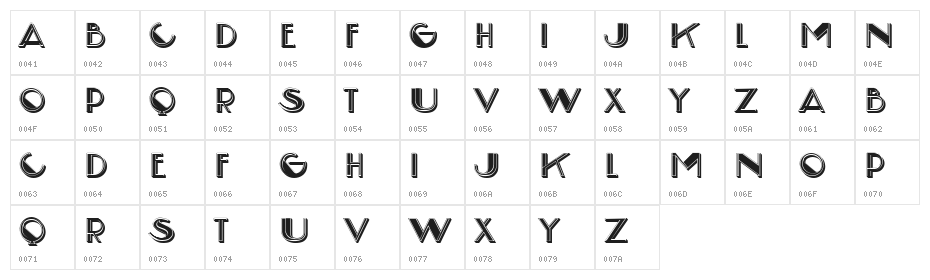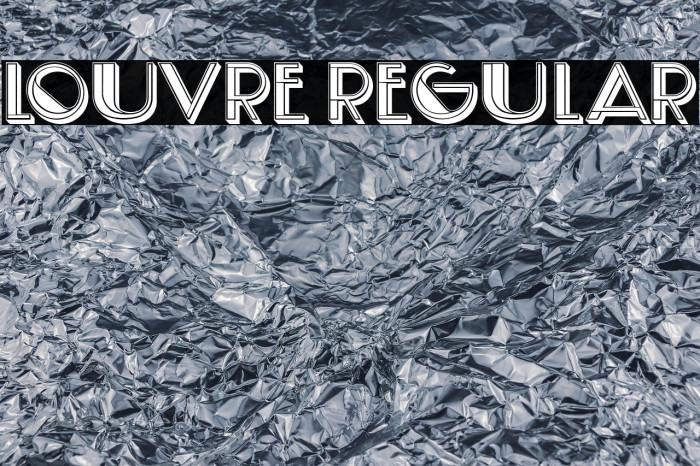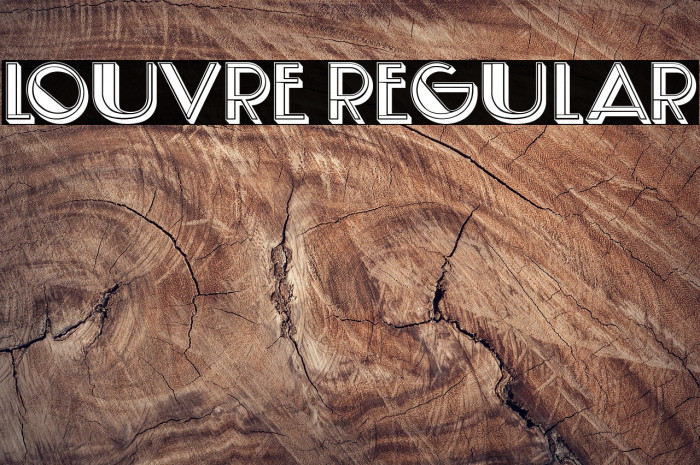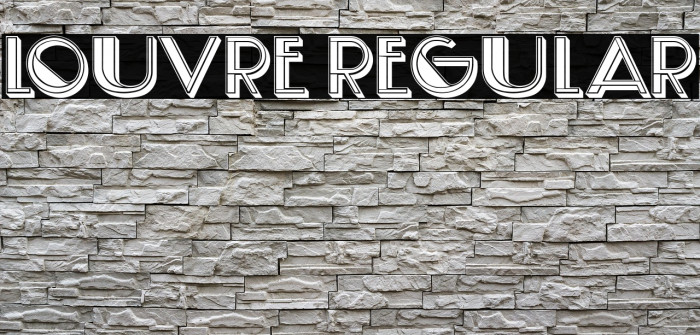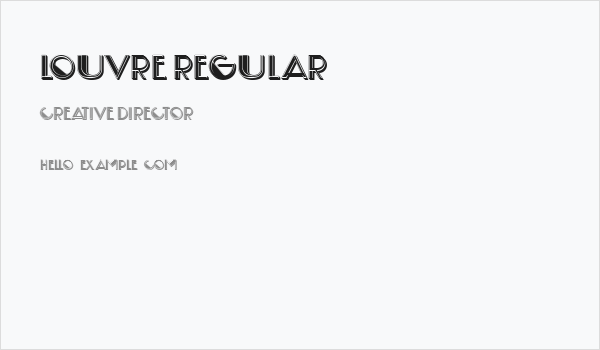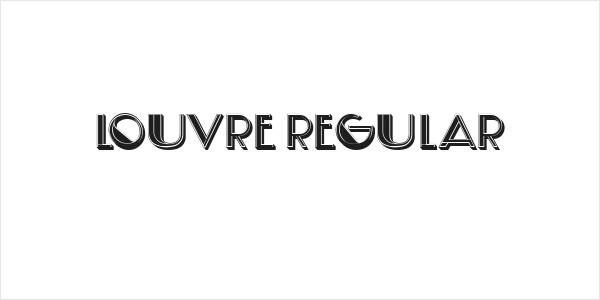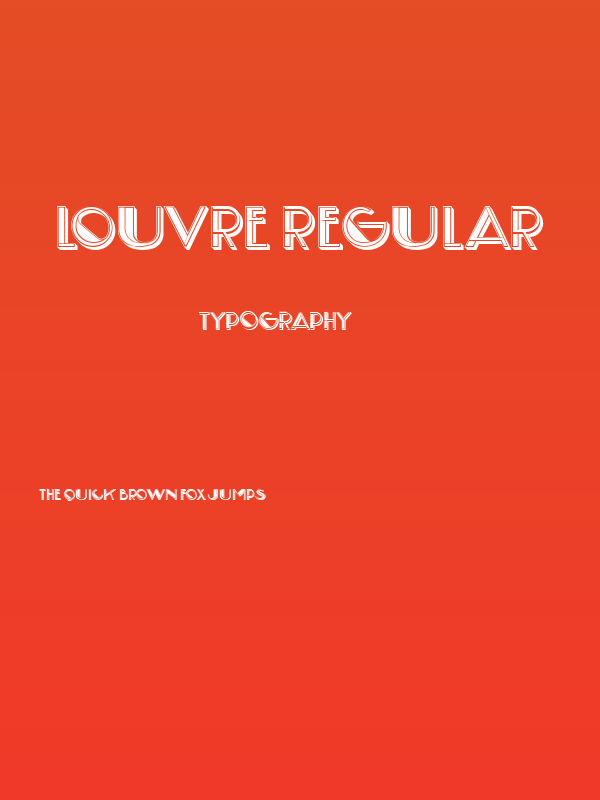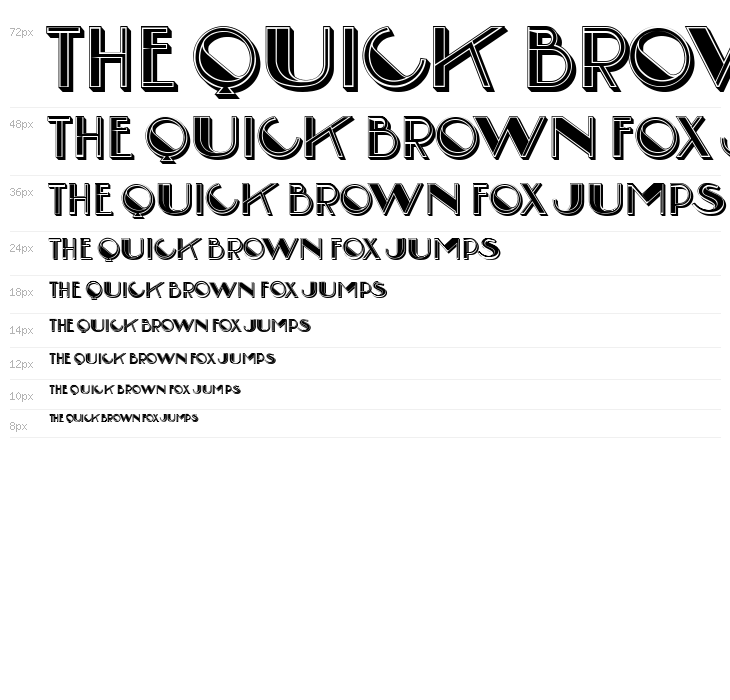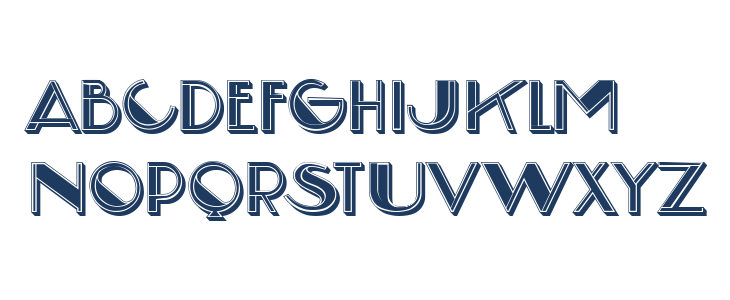
Louvre Regular Font
Louvre Regular Description
This font features a bold, geometric design with a distinct Art Deco influence. The characters are constructed with clean lines and sharp angles, creating a sense of elegance and sophistication. The use of double lines and shadow effects adds depth and dimension, making it visually striking. The uppercase letters are particularly prominent, with a strong presence that commands attention. The overall aesthetic is both modern and vintage, suitable for projects that require a touch of classic glamour.